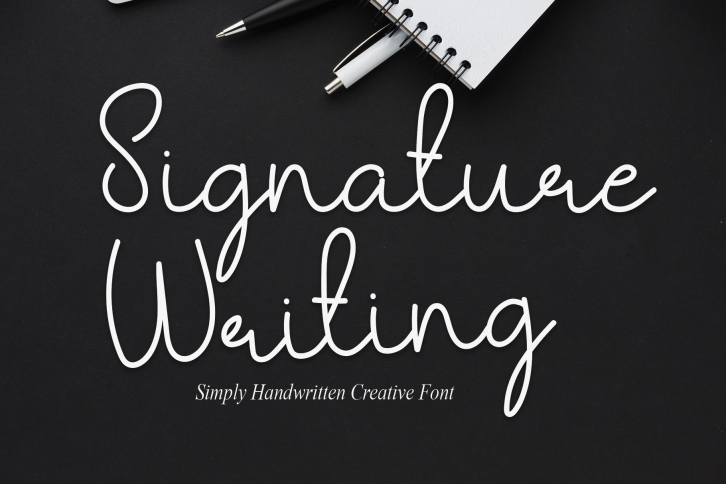
Signature Writing is a vintage styled handwritten font that was crafted with great care to produce the expected results. This font can be used to write various kinds of products according to their individual needs.